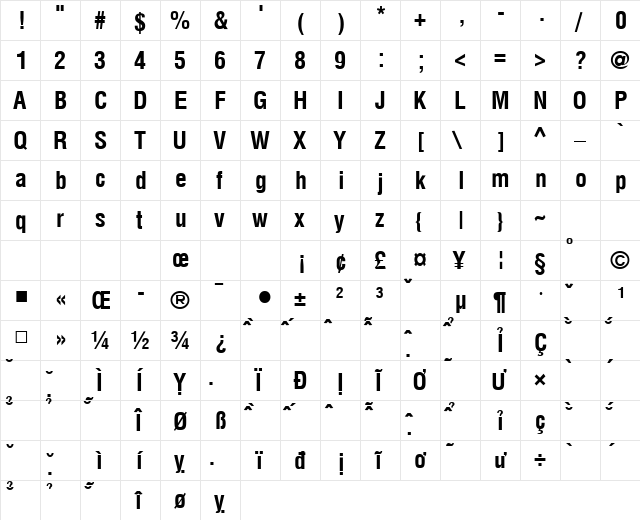
VNI-Helve-Condense Bold
Design Context for VNI-Helve-Condense Typeface
VNI-Helve-Condense is a composed and adaptable typeface that performs quietly and consistently across a wide range of design contexts. The heavy weight commands attention and anchors typographic hierarchies. The condensed width makes it efficient for tight spaces without sacrificing legibility.